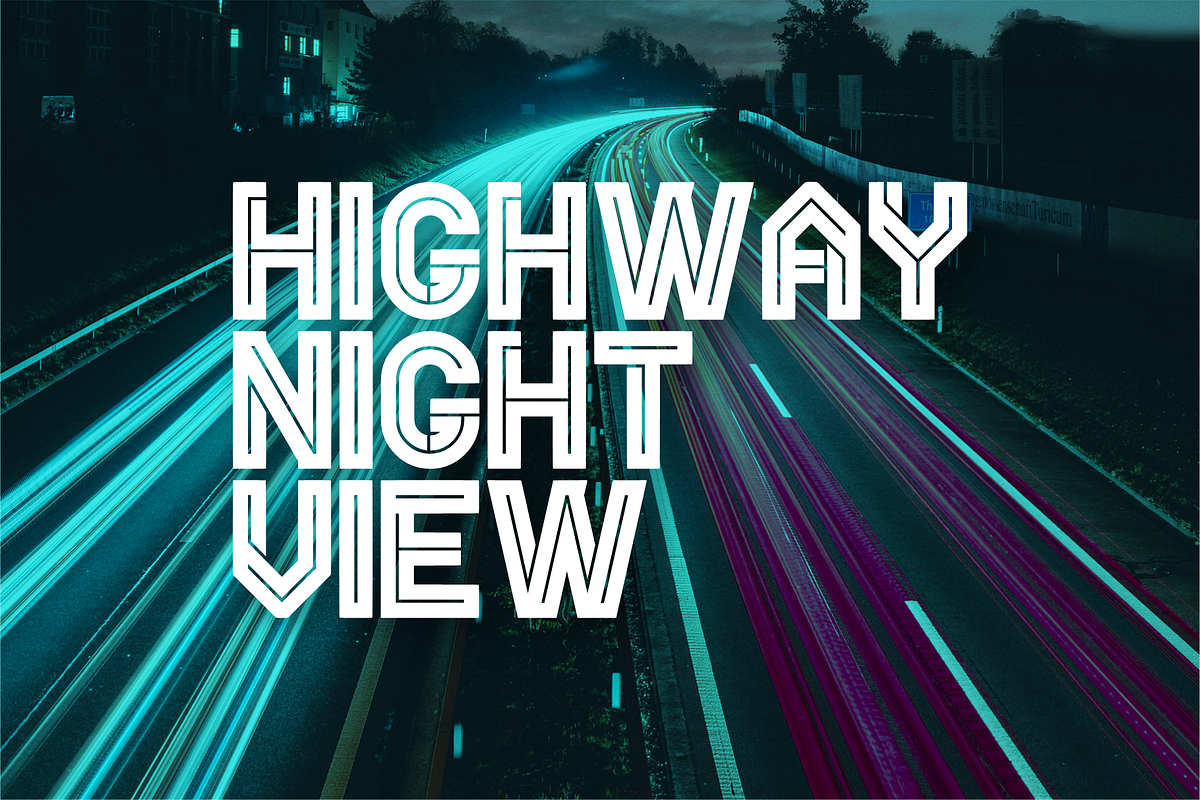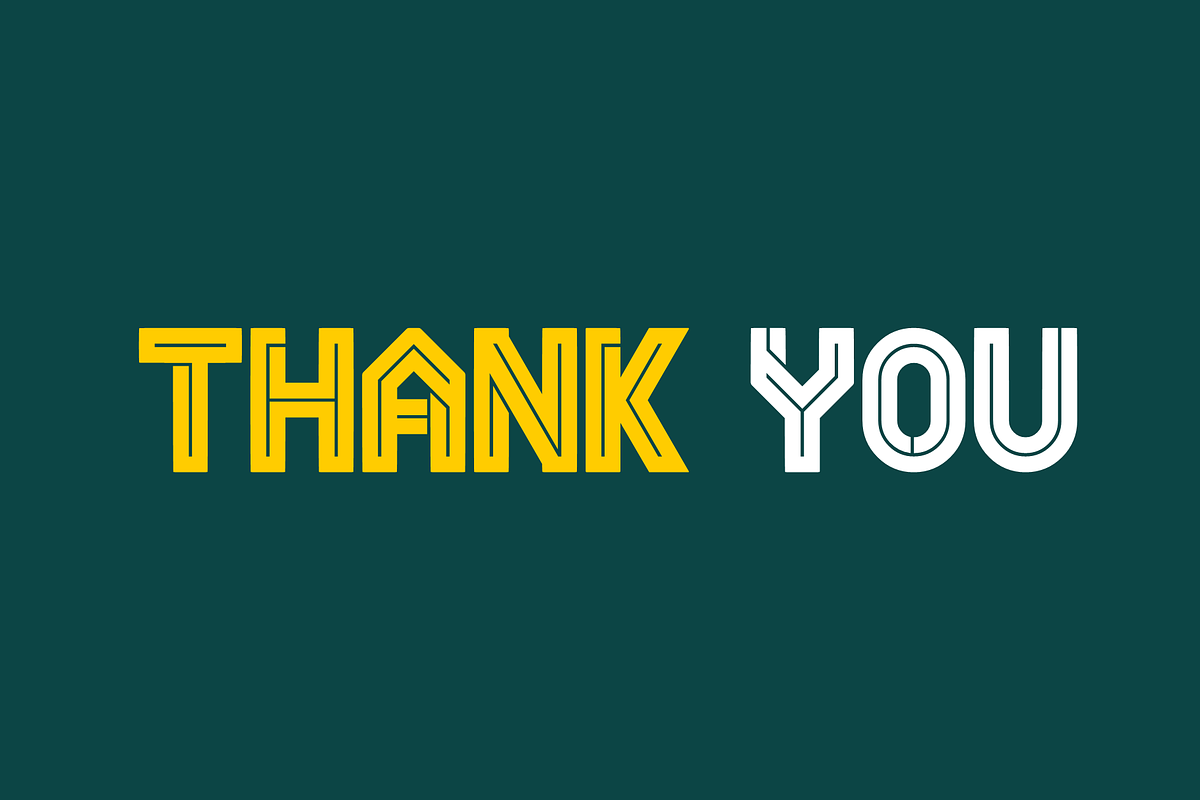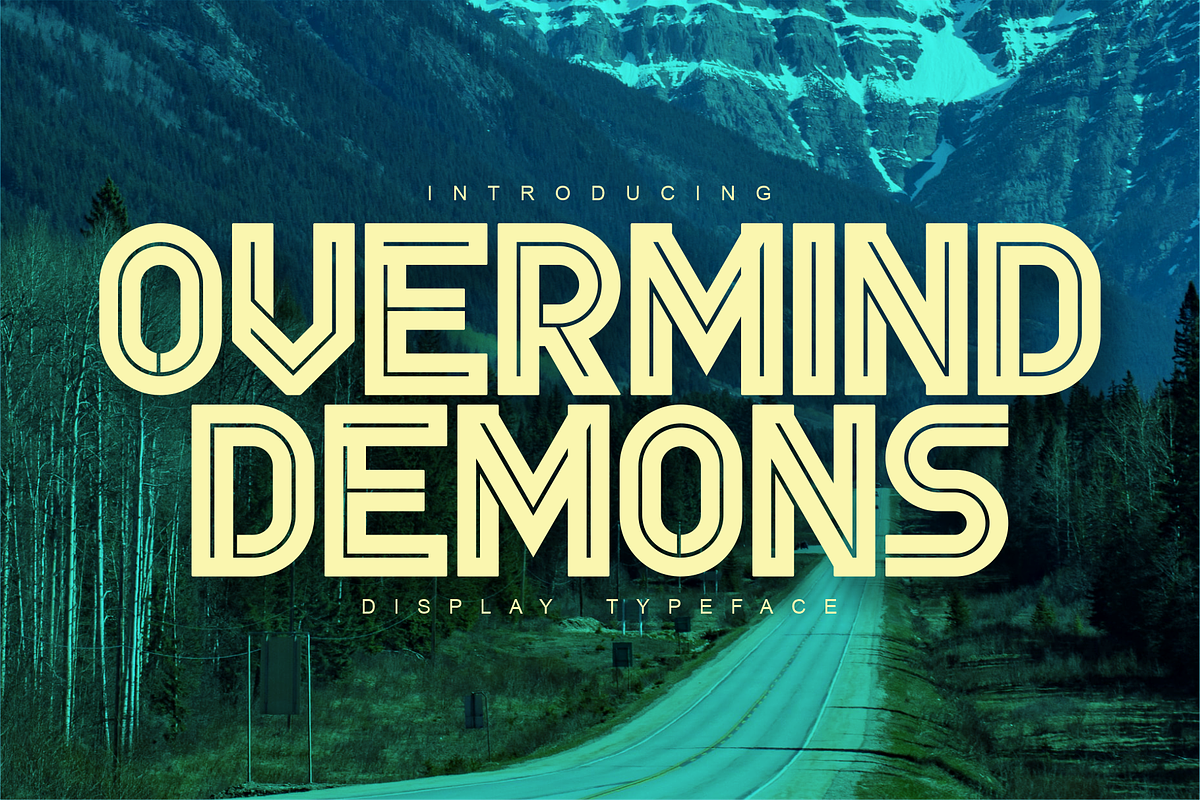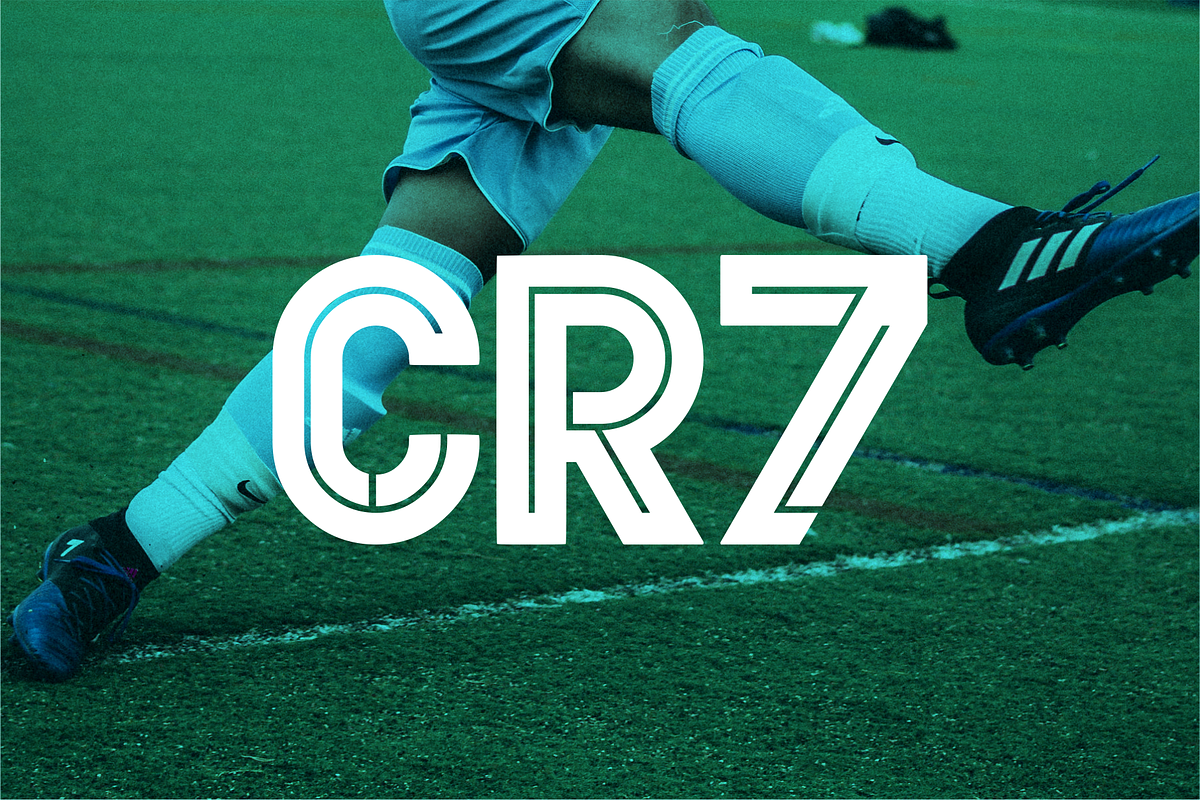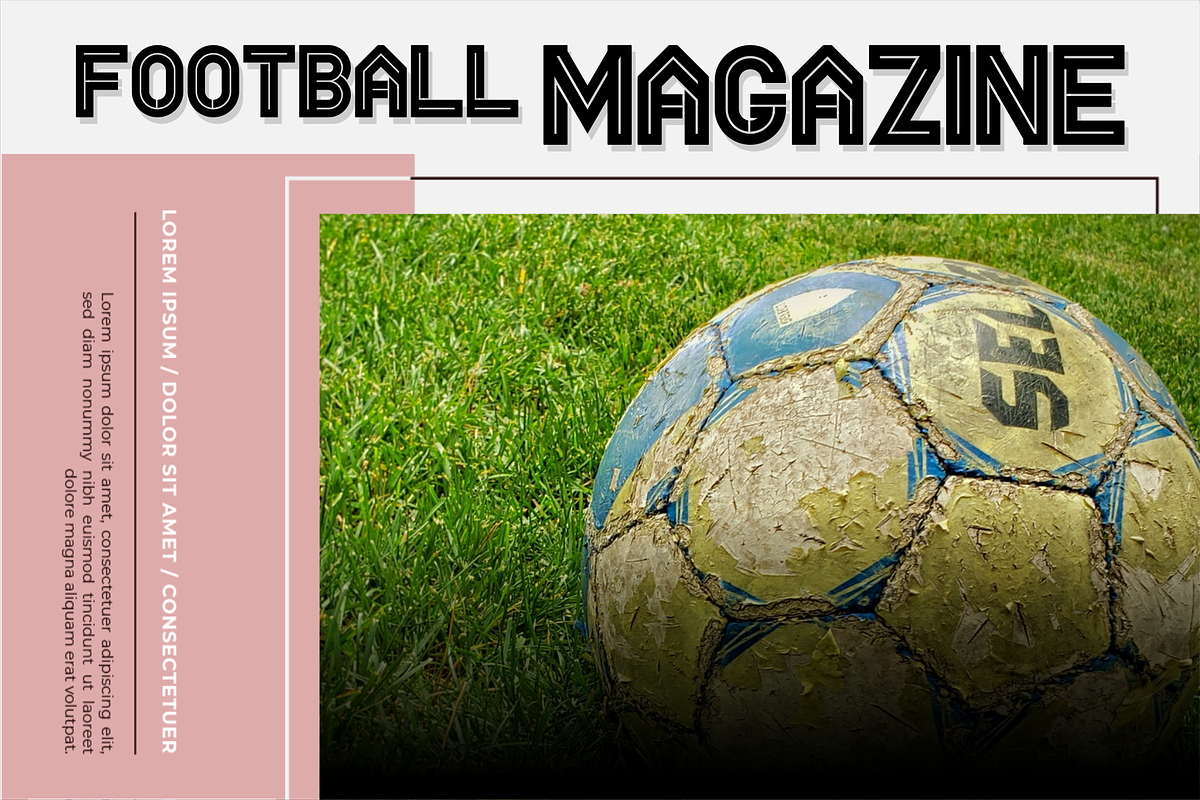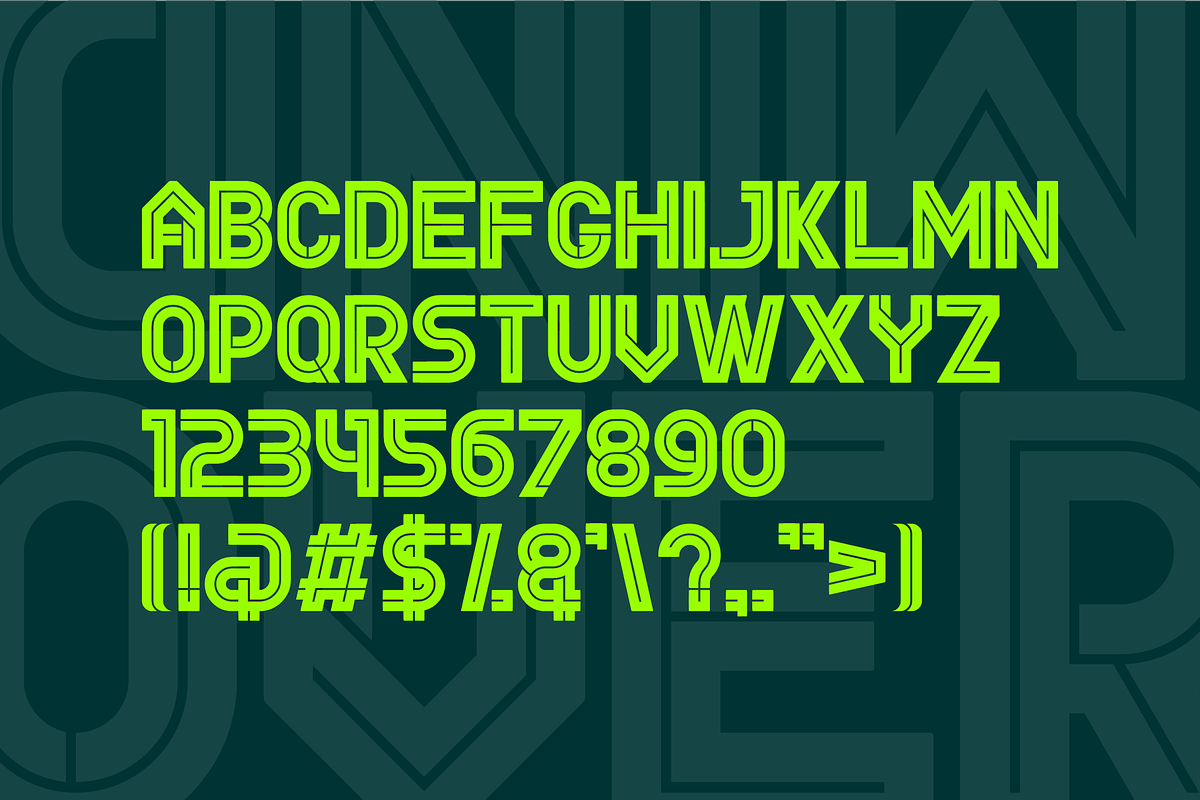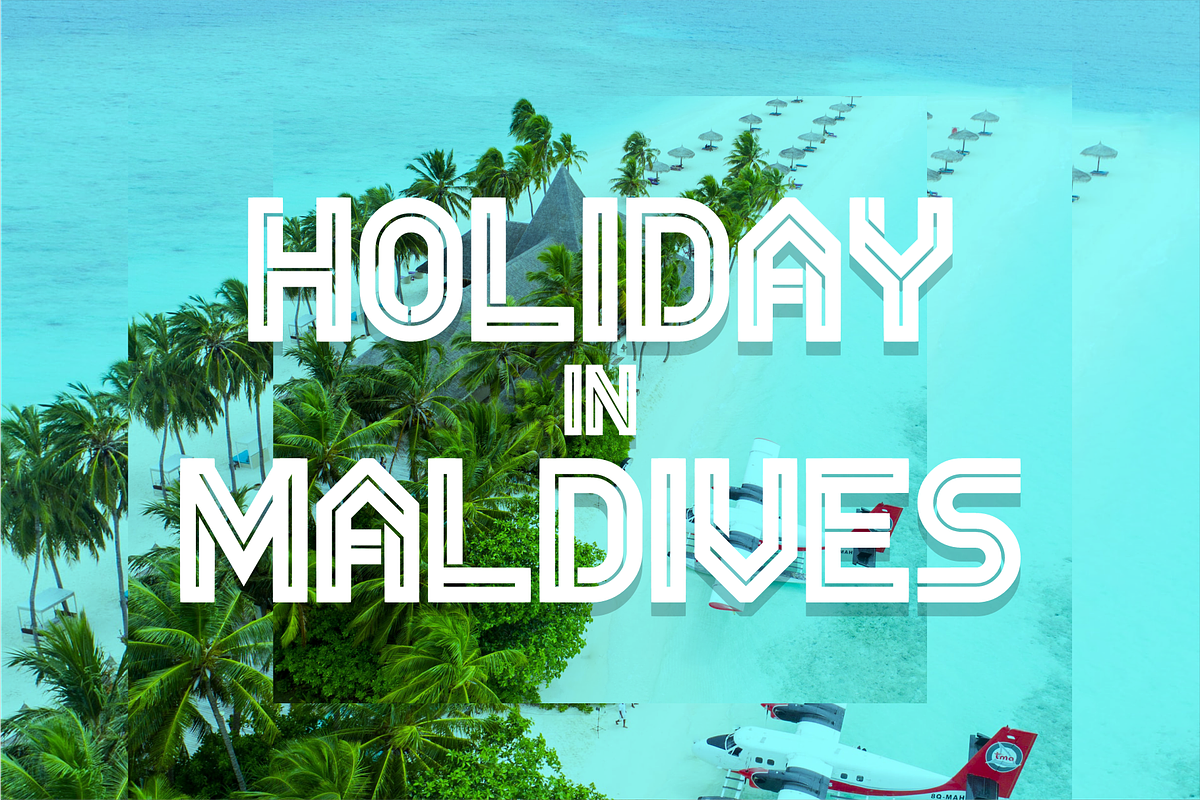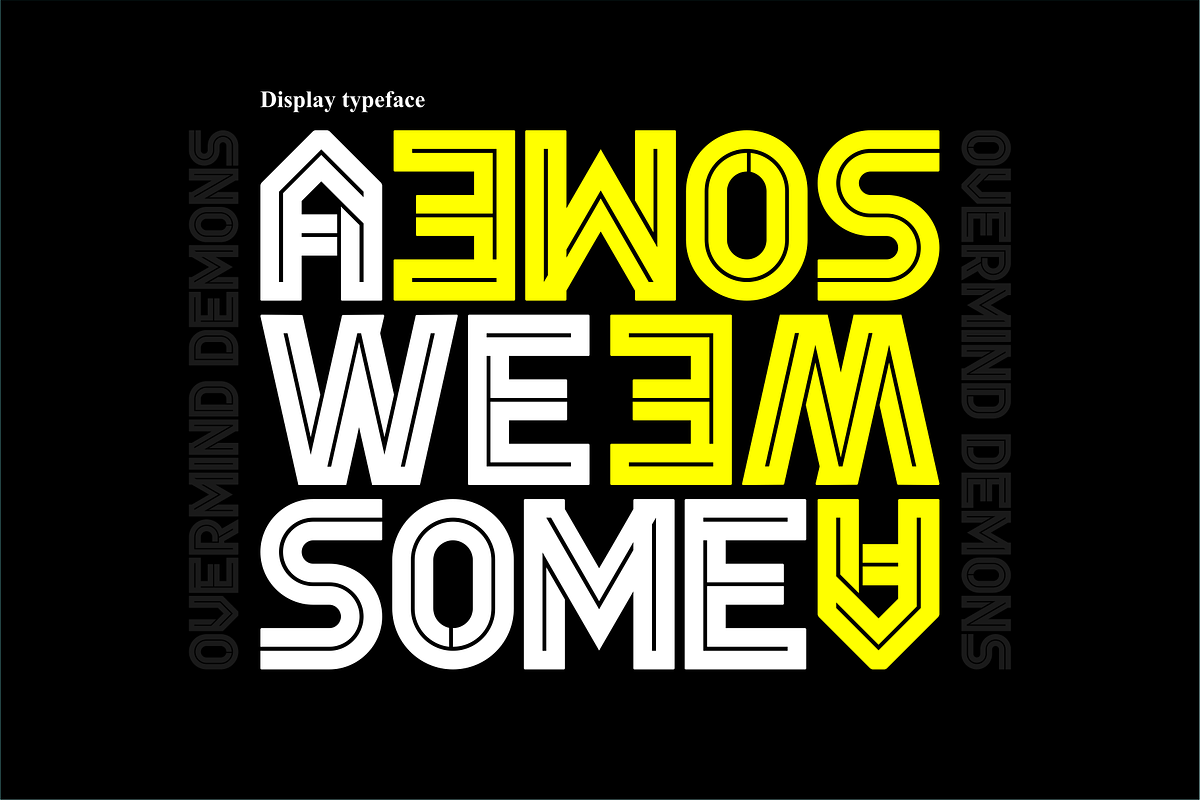
Overmind Demons
Overmind Font is a unique display typeface with a sporty, modern, adventurous edge. Created to give titles an extra punch, Overmind packs a full set of capital letters, numbers and punctuation. Whether it's a show, sporting event, logo design, cafe, travel or football poster, Overmind is made to make an impact. Hope you enjoy the results!